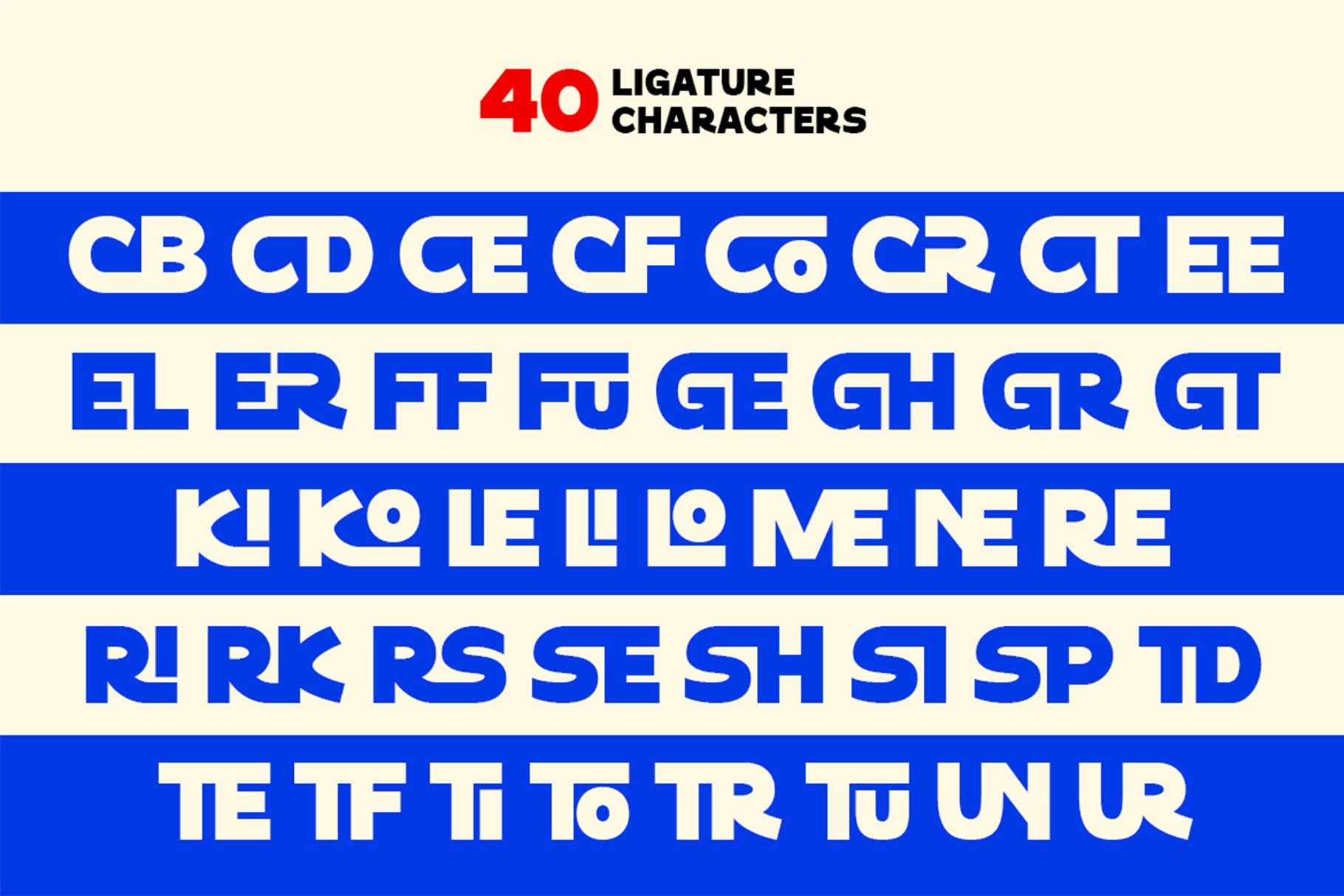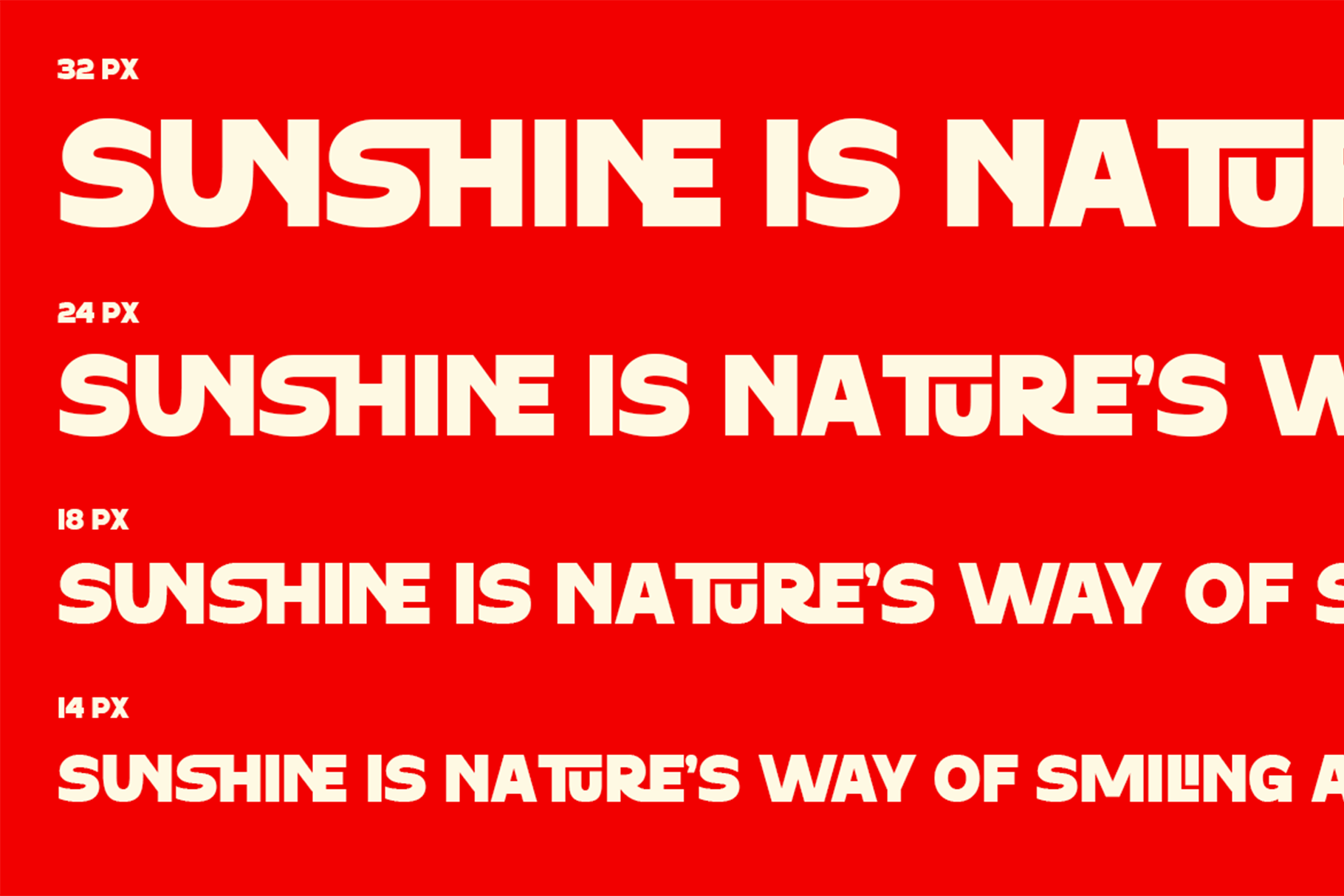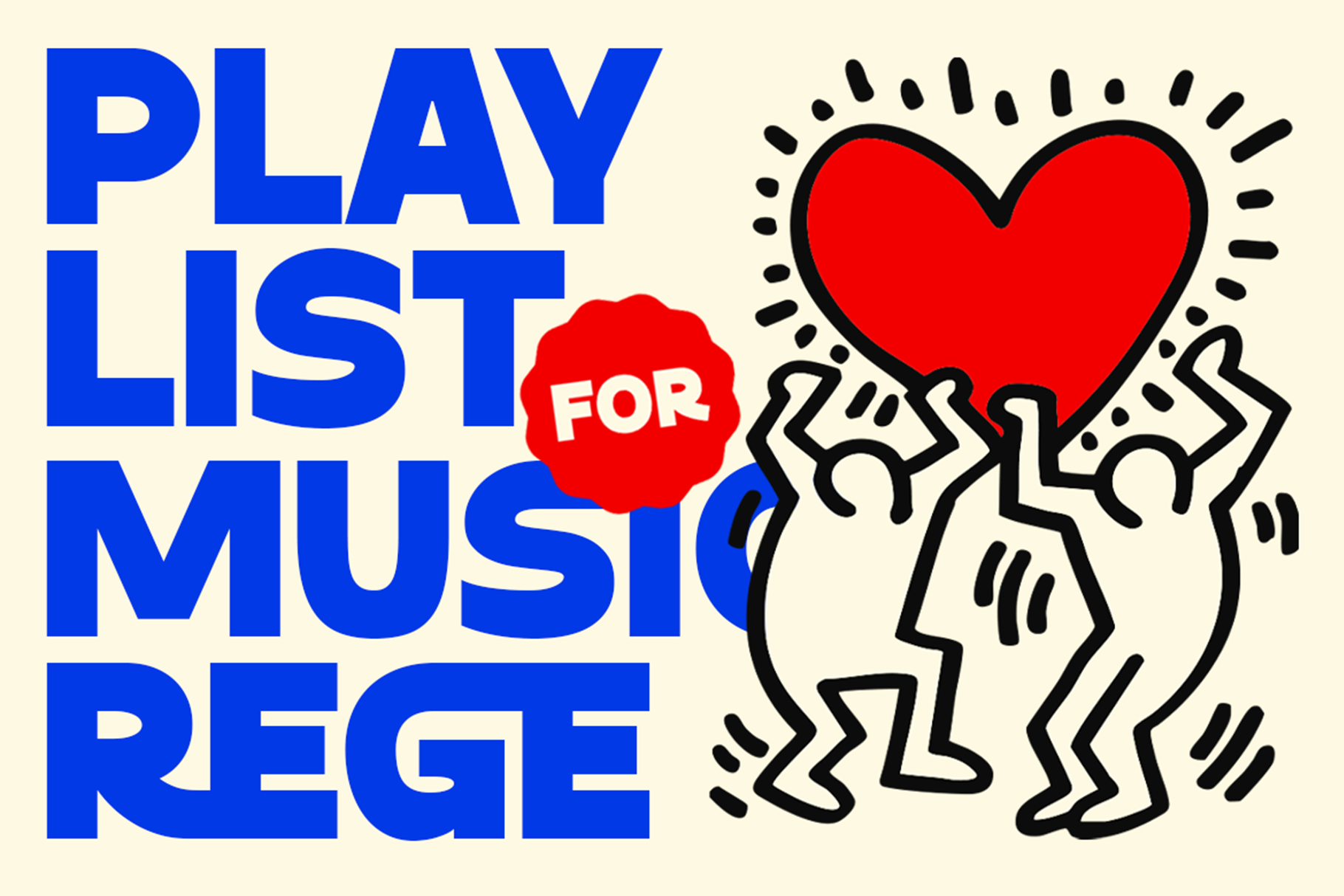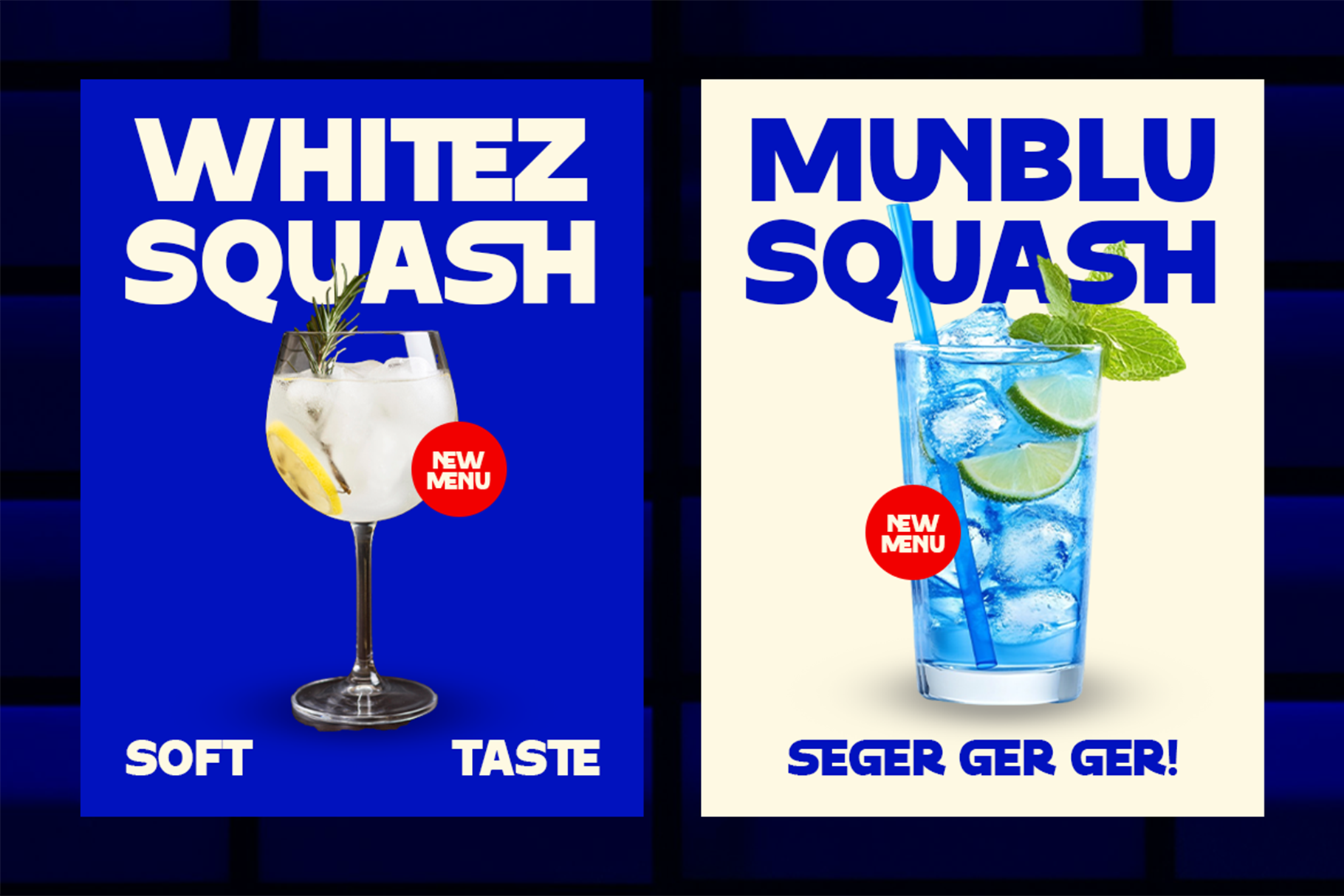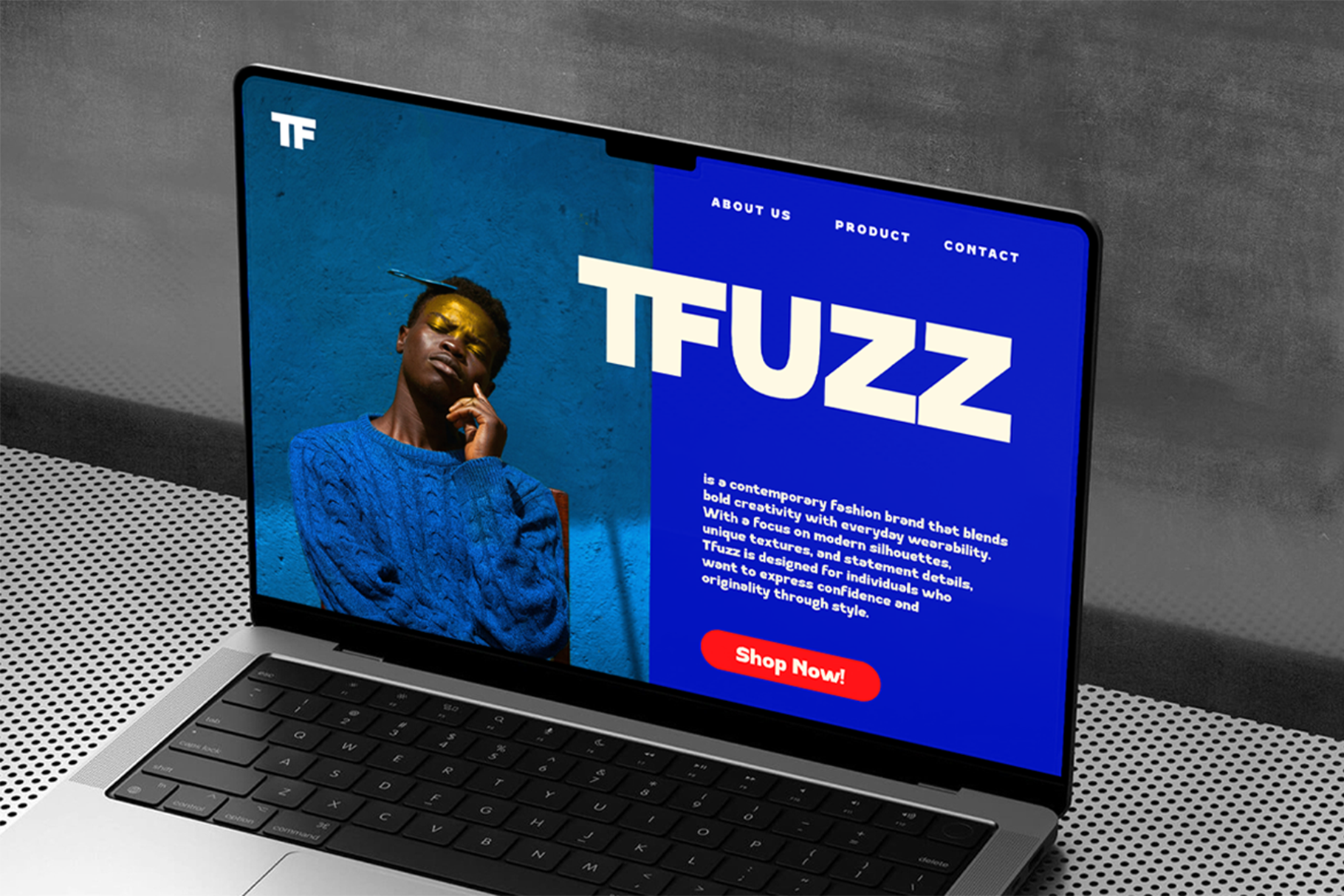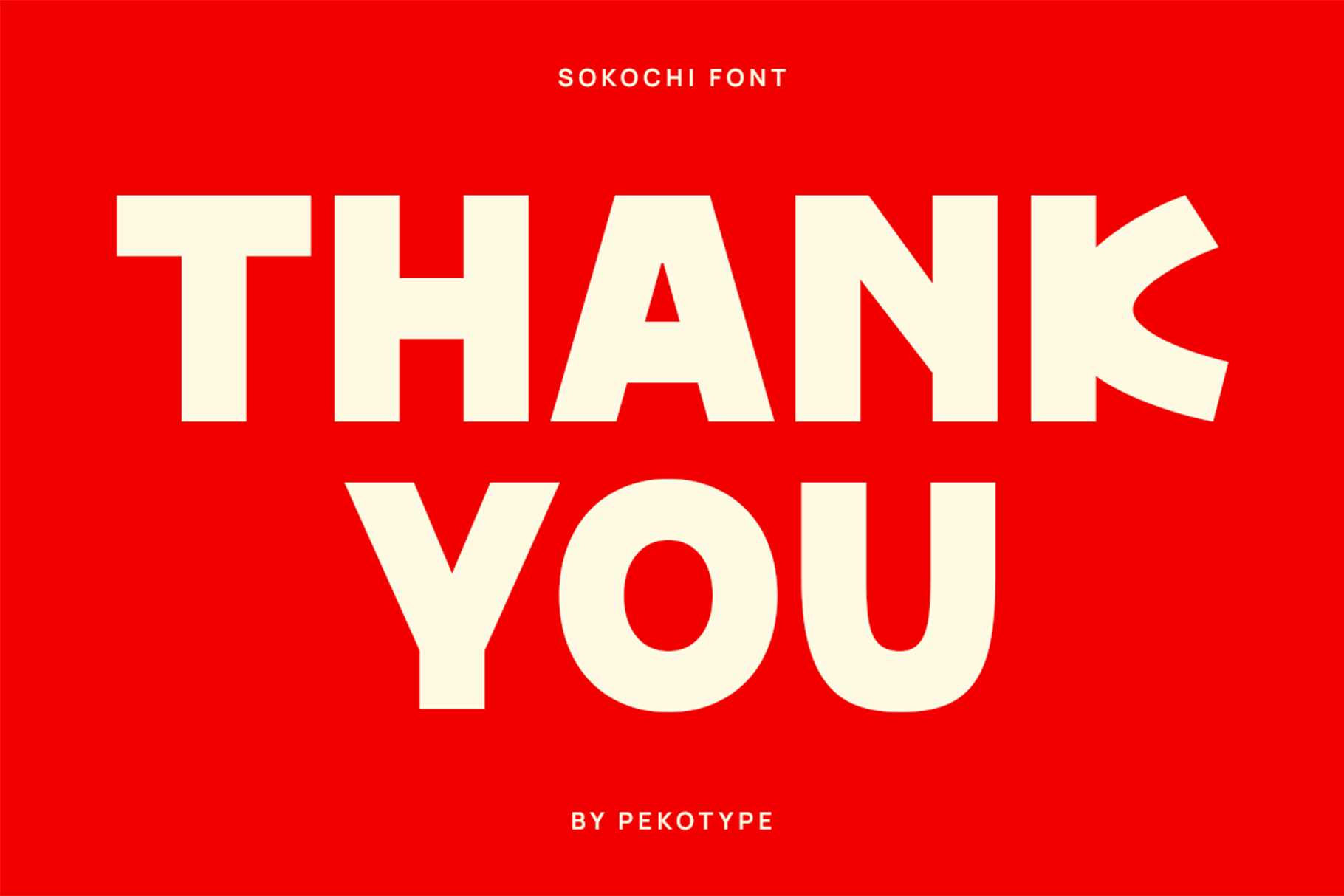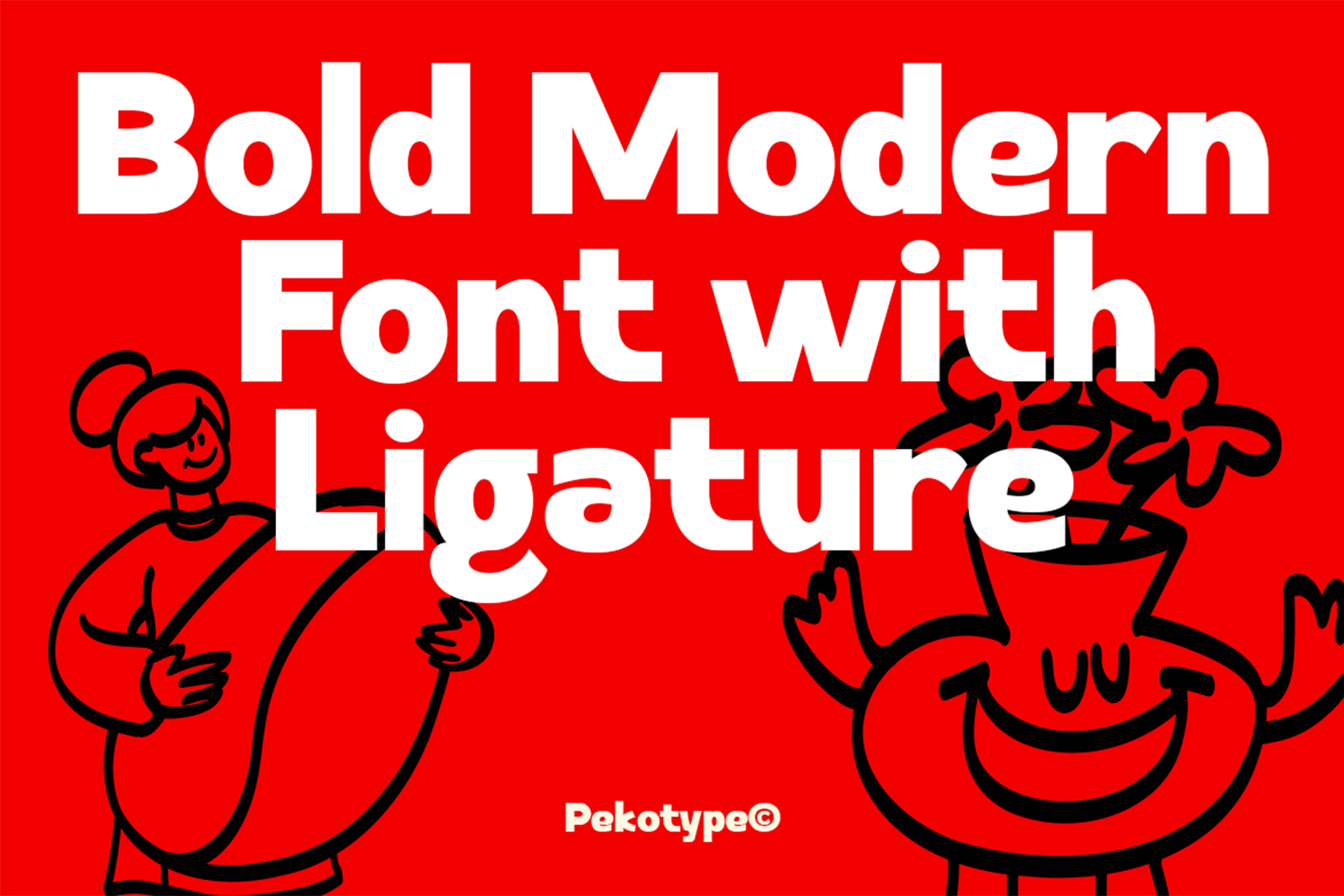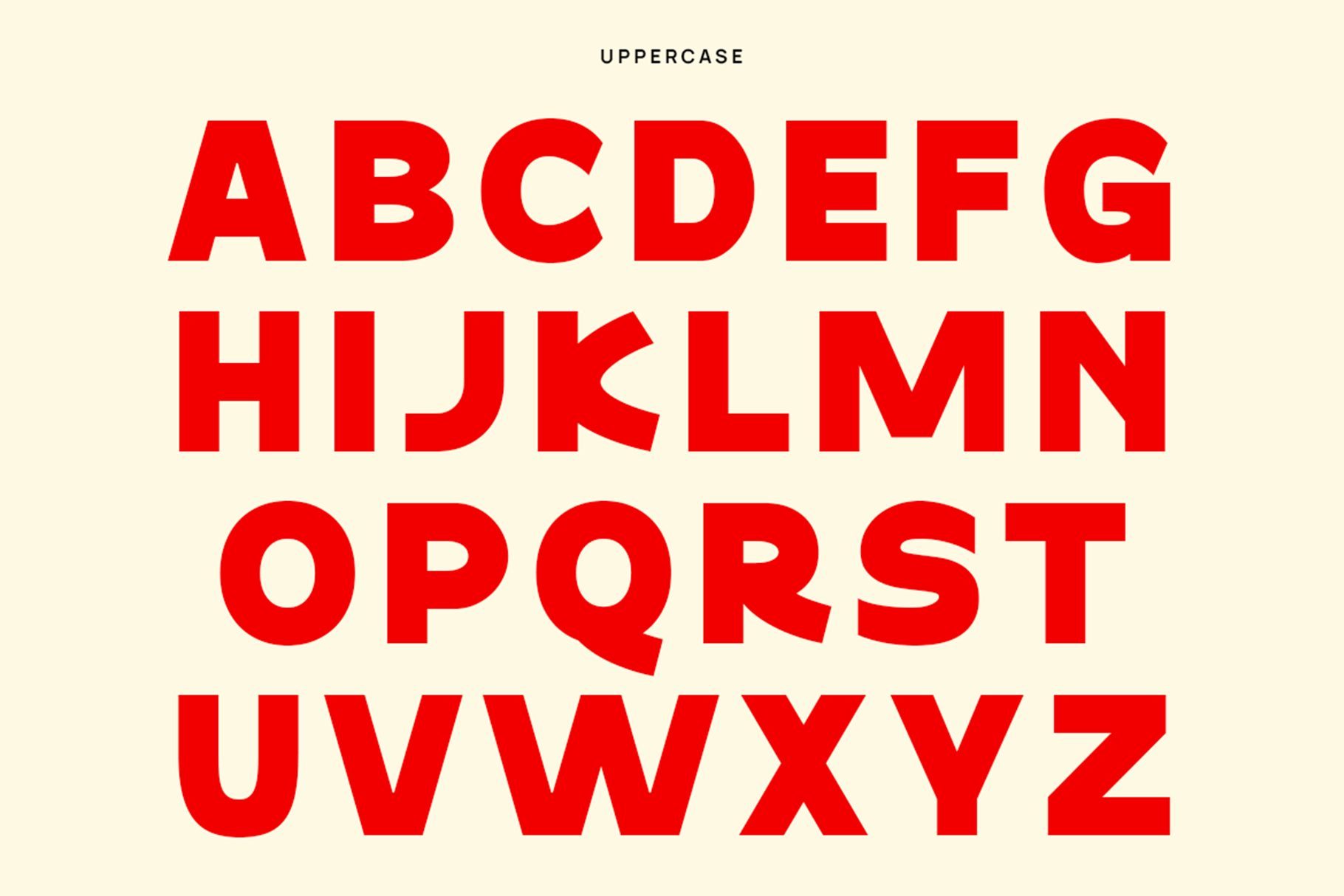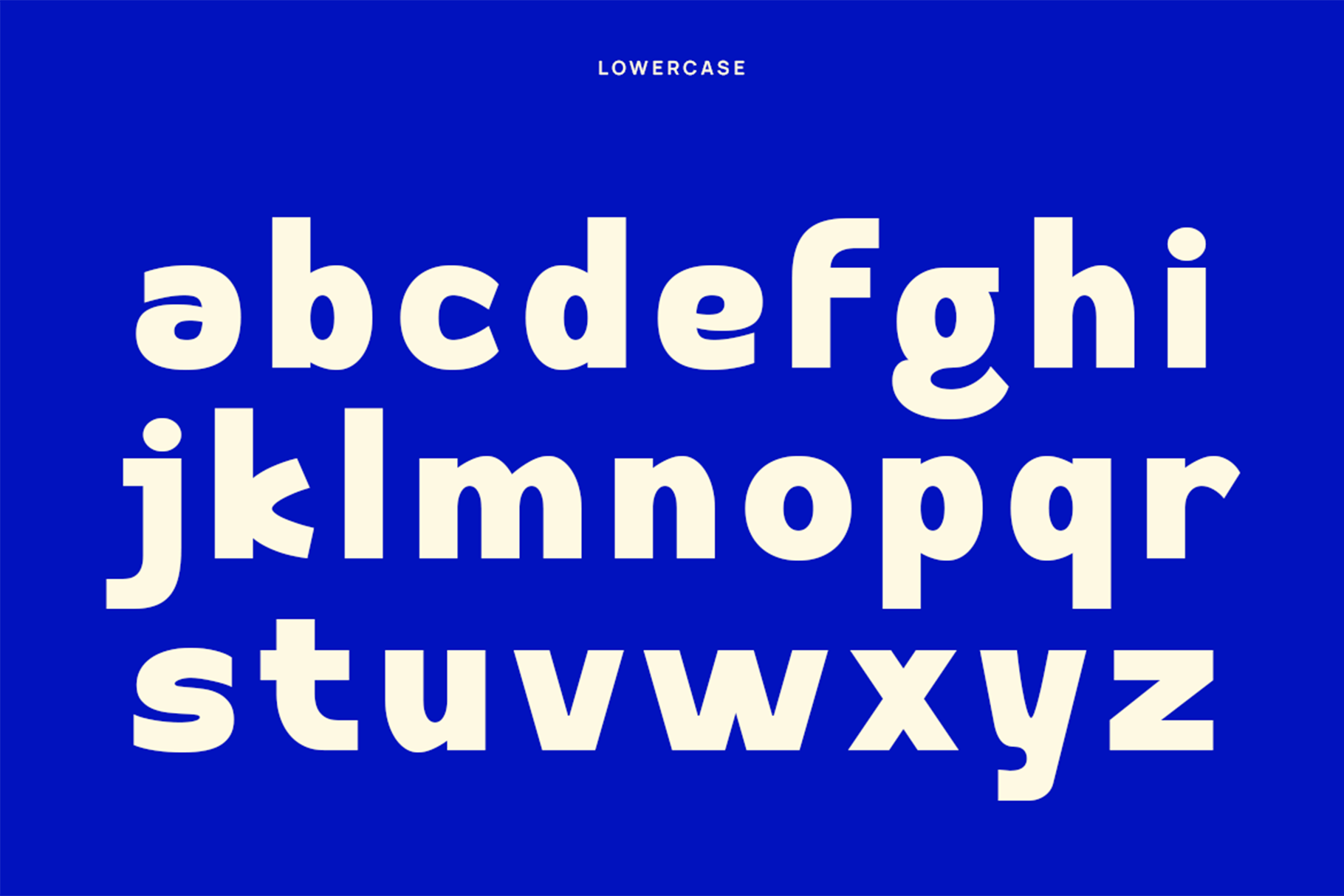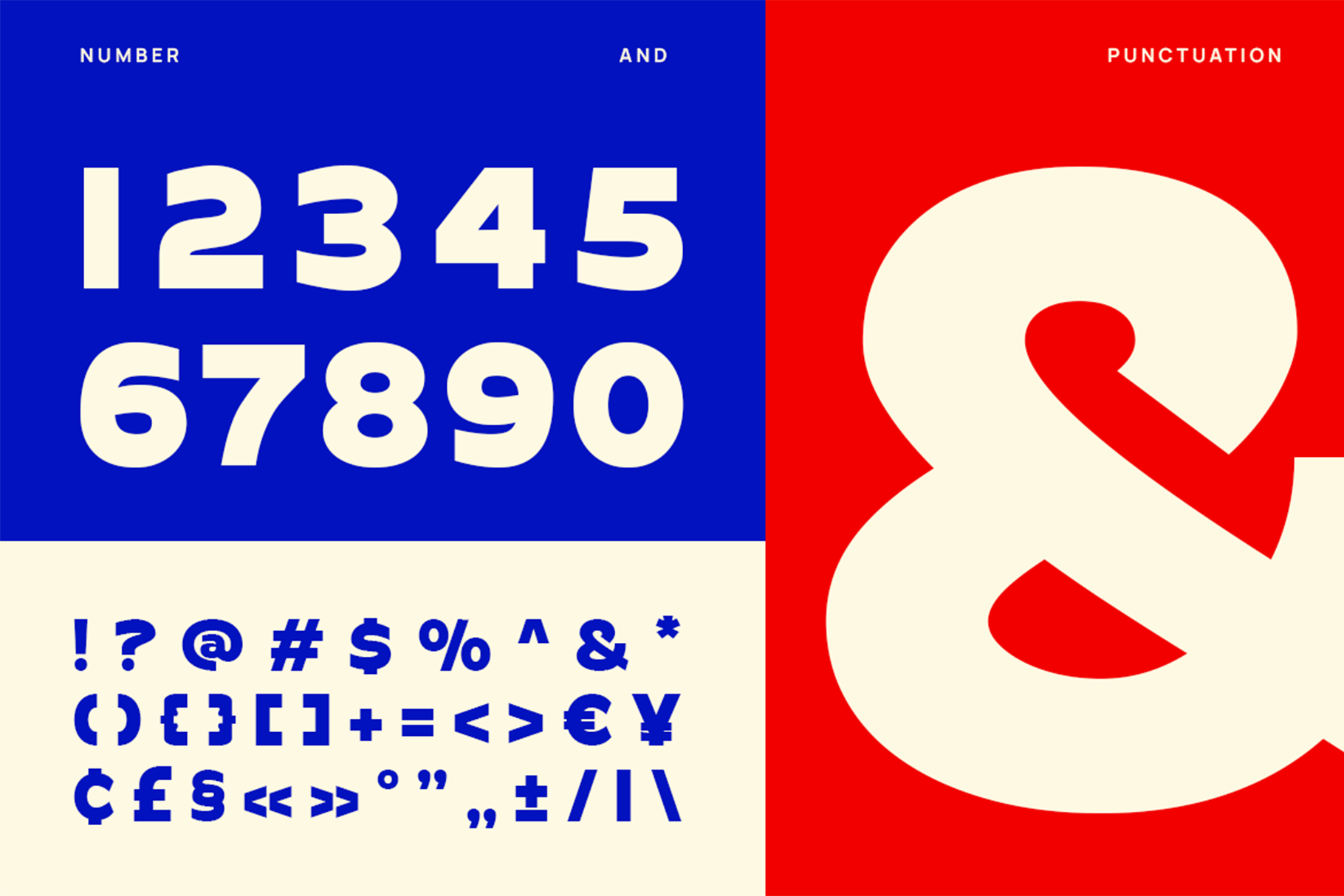
Sokochi
It’s a nostalgic sans serif font inspired by text-focused magazine ads of the 80s and 90s. Switzer is a Latin-script typeface with 18 styles; nine of those are italics. The family is a neo-grotesk design. Switzer’s appearance is classic and timeless; it might resemble earlier typefaces, but it is a new design made for our time. While the neo-grotesk style didn’t originate in Switzerland per se, some of the most-famous neo-grotesk come from Swiss designers.
• Ton of glyphs
• Ligature & Alternate